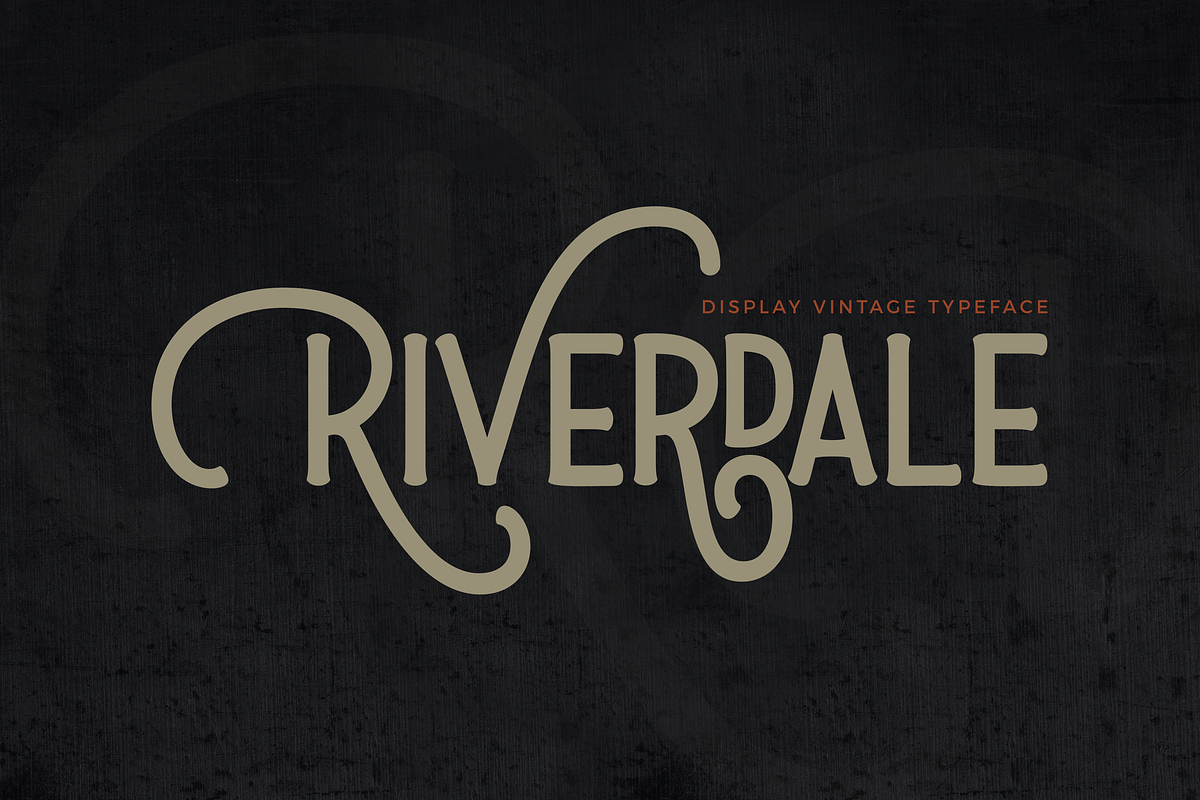
Riverdale Font Free Download is a stylish and modern typeface that combines elegance with a touch of sophistication. Inspired by contemporary design trends, this font is perfect for projects that require a bold yet refined look. Whether you’re designing logos, branding materials, or creating high-end promotional content, Riverdale offers a versatile and clean design that works beautifully across various applications. With its sharp lines and smooth curves, it stands out in both digital and print formats. The Riverdale Font Free Download allows you to experiment with its sleek aesthetic in personal projects or concept designs before purchasing a commercial license. Elevate your creative work with a font that brings both modern flair and timeless elegance to your designs.